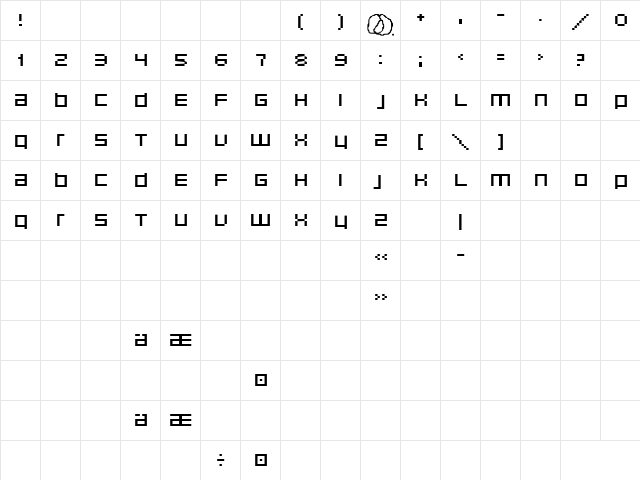
unborn editrion Regular Font Preview
unborn editrion Regular
unborn editrion Regular Font Details
| Foundry | Espen Kvalheim |
| Designer | Espen Kvalheim |
Design Context for unborn editrion Typeface
unborn editrion is a composed and adaptable typeface that performs quietly and consistently across a wide range of design contexts.